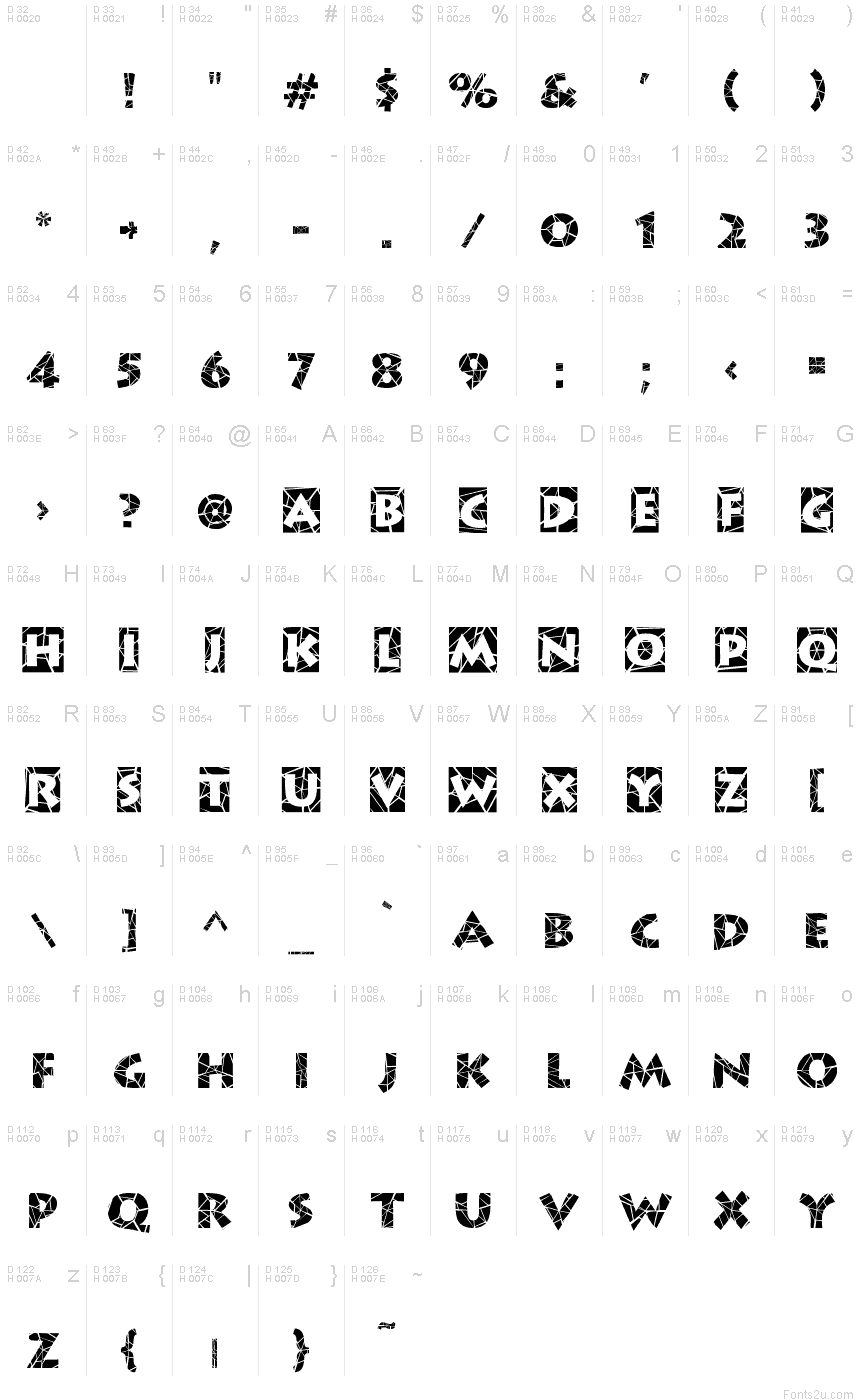
Spider Web Block by Jonathan Smith of Rhode Island Soft Systems, Inc. is a free fractured display font built from broad, angular capitals. Each letter is split by sharp, irregular web lines.
Horror posters and music merchandise both suit the font's solid forms and splintered interior detail. It can also turn Halloween packaging or a game title into part of the artwork, with cracks resembling drawn threads or broken glass. Its clearest audience is drawn to comic-book horror, heavy music, and haunted attractions.